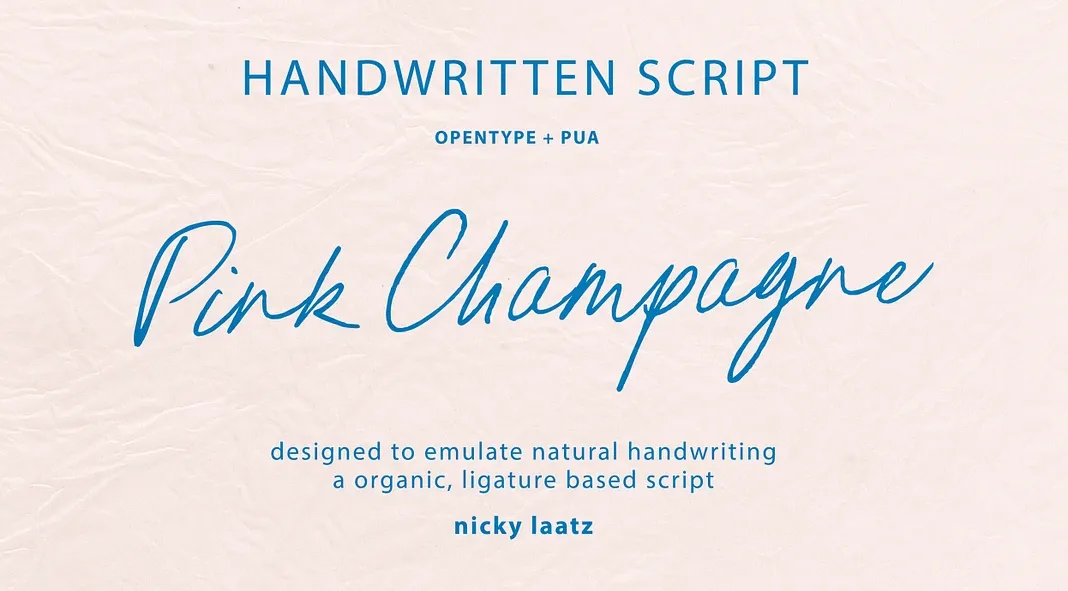
Check out Pink Champagne Script, a beautifully hand-drawn typeface by Nicky Laatz. With its ultra-chic yet ultra-casual aesthetic, the Pink Champagne Script font is ready to take on any design project with effortless charm and authenticity.
A Handwritten Touch with Authenticity
Pink Champagne Script stands out with its inky, wobbly edges, meticulously designed to emulate natural handwriting. This attention to detail ensures that every letter appears as though it has been crafted by hand, lending a personal touch to your designs. Whether you’re working on digital art, branding, or printed materials, Pink Champagne Script adds a layer of genuineness that can be hard to achieve with other script fonts.
Opentype Ligatures: Enhancing Natural Flow
One of the standout features of Pink Champagne Script is its extensive selection of Opentype ligatures. These ligatures are designed to make the font appear more natural and free-flowing. When activated, they allow for seamless connections between letters, mimicking the fluidity of true handwriting. For those who love to experiment, Pink Champagne Script offers the flexibility to turn ligatures on or off as needed, enabling you to customize your type settings to perfection.
Versatility in Pairing
Pink Champagne Script’s versatility extends beyond its standalone beauty. When paired with a strong Sans-serif or Serif font, it creates a harmonious balance that can elevate any design. This pairing is particularly effective in projects requiring a blend of elegance and clarity, such as wedding invitations, greeting cards, and branded labels. The juxtaposition of this casual script with a bold, clean typeface makes for a match made in typographic heaven.
Perfect for Various Design Applications
The charm of the Pink Champagne Script font lies in its adaptability. On its own, it’s an ideal choice for a wide range of applications:
- Notes and Labels: Add a personal touch to your everyday items.
- Greeting Cards and Wedding Invites: Infuse your celebrations with warmth and elegance.
- Quotes: Make your inspirational messages stand out.
- Organic Themes: Perfect for projects that need a natural, earthy feel.
Whether you’re designing for personal use or clients, Pink Champagne Script offers the flexibility and style to meet your needs.
Pink Champagne Script is a designer’s dream. With its natural handwriting emulation, extensive Opentype ligatures, and versatile pairing capabilities, it’s poised to become a staple in any creative toolkit. Let this ultra-chic, ultra-casual charm elevate your designs to new heights.